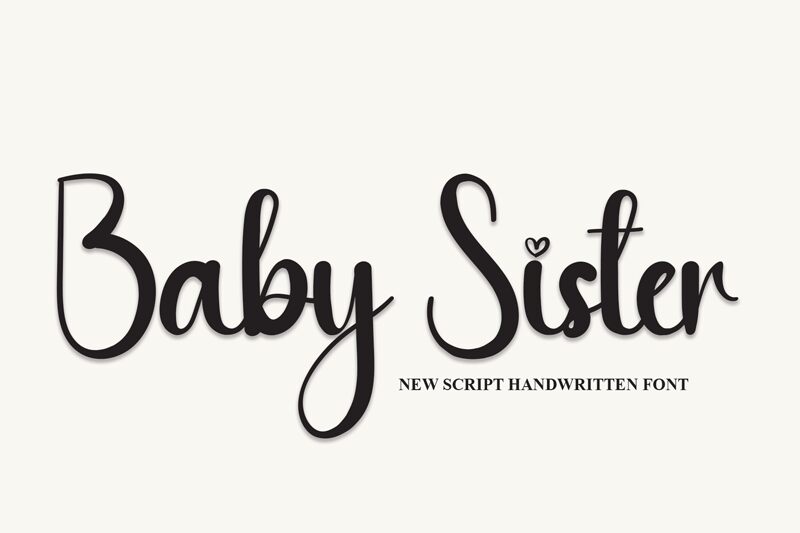
Baby Sister
Baby Sister is a charming, handwritten font designed by Andi Moz. Its organic, flowing strokes evoke a sense of warmth and playfulness, making it an ideal choice for creating a whimsical, personalized aesthetic.
The font's natural variations and expressive flourishes lend a unique, hand-crafted feel to any design, whether it's greeting cards, invitations, or even branding materials. Its versatility allows it to seamlessly transition between formal and informal settings, adding a touch of personality and character to a wide range of projects.
Baby Sister is a delightful font that captures the essence of handwritten expression.